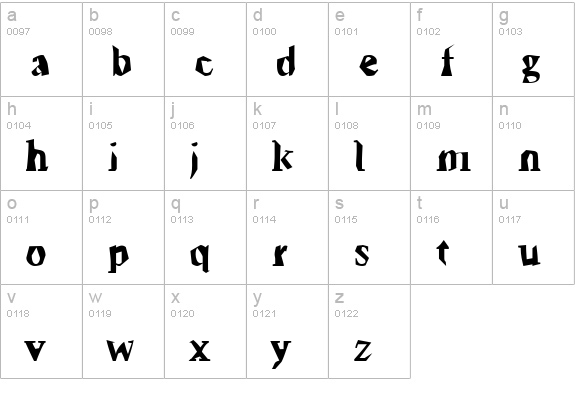
Ticky font Font Details
Introducing Ticky font, a delightful and whimsical typeface that is sure to bring a touch of playfulness to any design project. With its intricate curves and lively strokes, Ticky font is perfect for adding a dash of personality to your creations. This versatile font is suitable for a wide range of design applications, from posters and invitations to logos and branding materials. Its unique and eye-catching letterforms will instantly grab attention and make your message stand out. But what makes Ticky font even more special is that it is free! Yes, you read that right. Ticky font is freely available to download at FontsMarket.com. Now you can enjoy the beauty and charm of this font without any cost. It's a fantastic opportunity to enhance your designs without breaking the bank. Whether you're a professional designer looking to add a touch of whimsy to your client's project or an enthusiast wanting to spice up your personal creations, Ticky font is the perfect choice. Its playful and energetic vibe will bring a fresh and fun element to any design. So why wait? Head over to FontsMarket.com and download Ticky font today. Let your creativity soar with this delightful font that is both eye-catching and free.